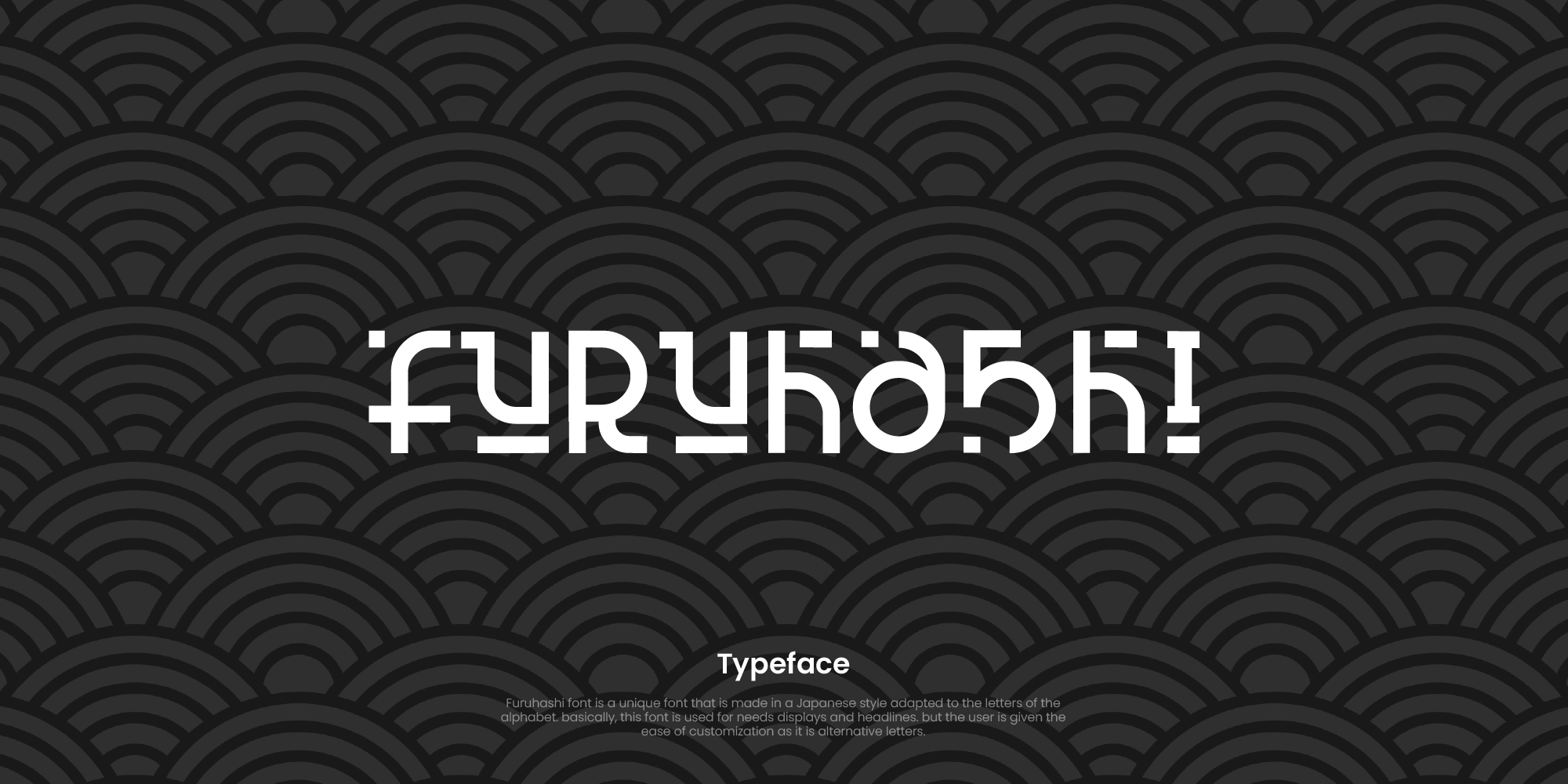
Furuhashi Font is perfect for Japanese restaurant branding, cultural event materials, martial arts studio signage, zen meditation center graphics, traditional craft packaging, tea house menus, Asian cuisine marketing, cultural festival posters, mindfulness app interfaces, and contemporary Japanese-inspired design projects. This sophisticated typeface excels in applications where Eastern philosophy and modern aesthetics need to be communicated with authentic cultural respect and harmonious visual balance.
What makes Furuhashi Font exciting is its extraordinary ability to bridge traditional Japanese design principles with contemporary Western typography, creating a unique fusion that honors cultural heritage while embracing modern functionality. The font embodies the essence of Japanese aesthetic philosophy through its balanced proportions and subtle elegance that reflects the principles of harmony, simplicity, and natural beauty. Its carefully crafted letterforms and refined spacing create an atmosphere of tranquil sophistication that resonates with audiences seeking authentic cultural experiences and mindful design solutions.
The Furuhashi Font family typically includes Light, Regular, and Bold weights, each maintaining the signature balance and cultural sensitivity that defines authentic Japanese-inspired typography. Some versions offer extended character sets with katakana and hiragana support, along with specialized symbols and decorative elements. The family may also include condensed variants and display cuts that enhance the cultural aesthetic for traditional and contemporary applications.
Whether you're creating authentic Japanese brand experiences, cultural celebration materials, or East-meets-West design solutions, Furuhashi Font Free Download provides the perfect harmony of tradition and innovation your culturally-conscious projects deserve. Its respectful interpretation of Japanese design principles and contemporary functionality make it an invaluable choice for designers seeking to create meaningful connections between Eastern wisdom and modern global communication while maintaining cultural authenticity and artistic integrity.